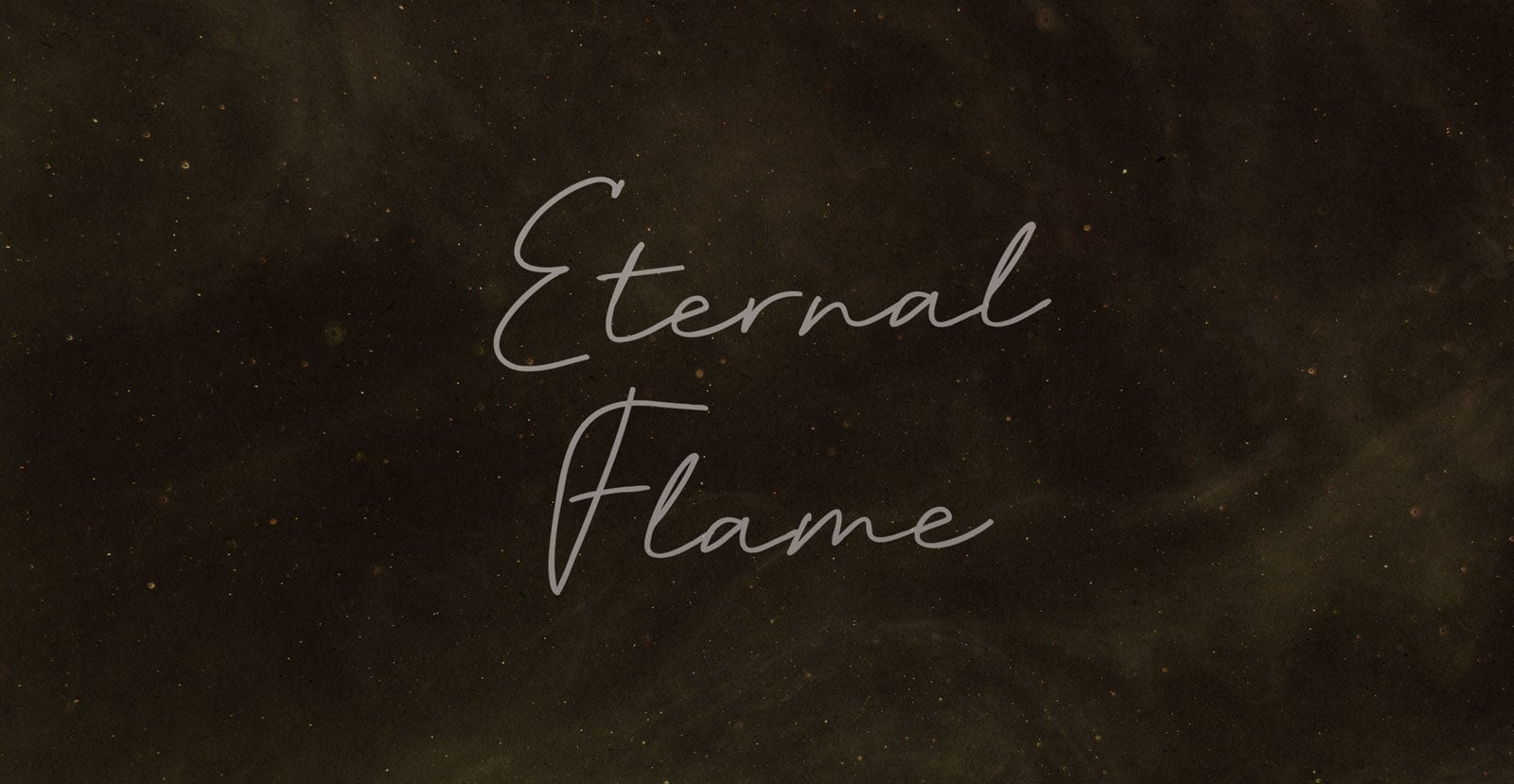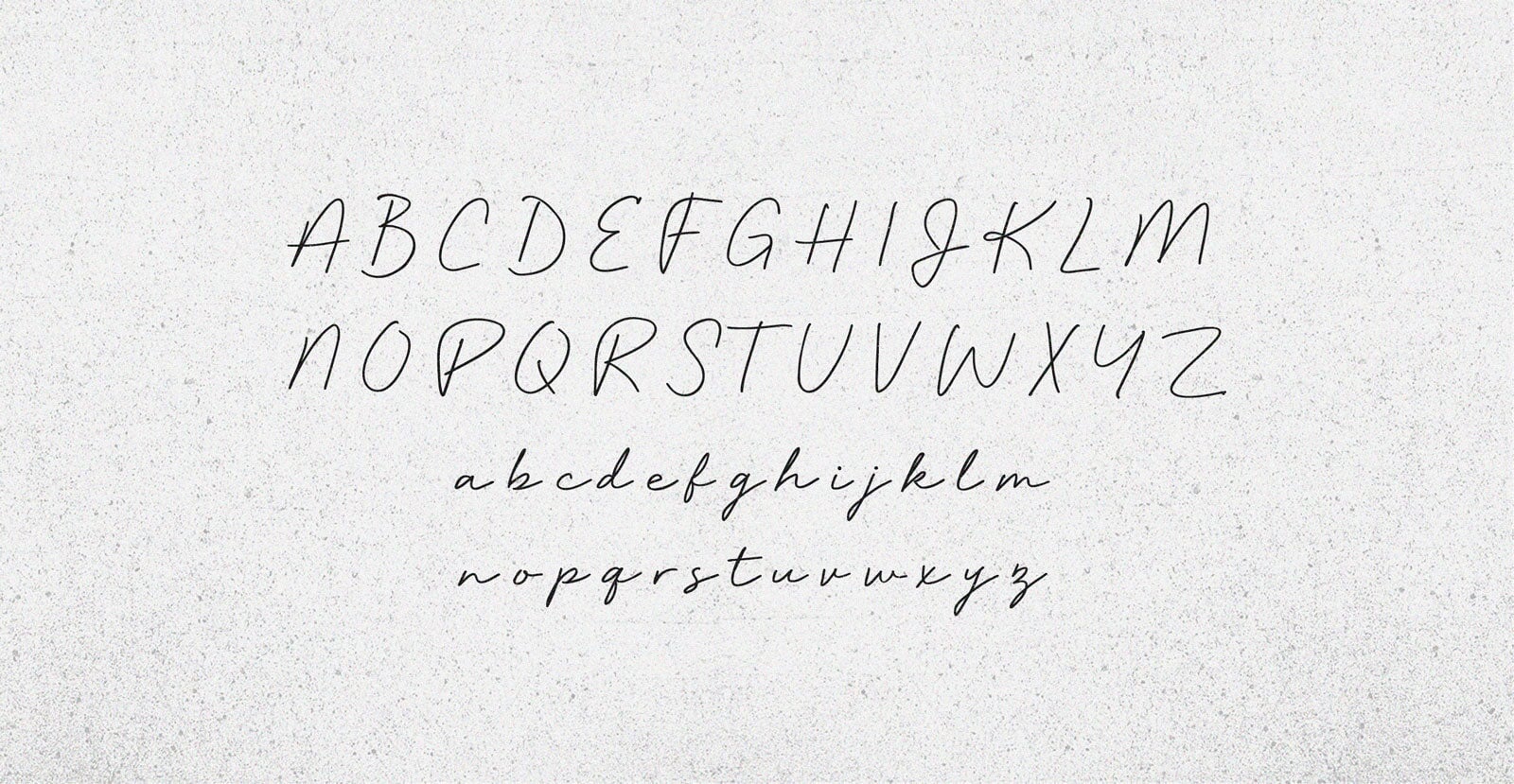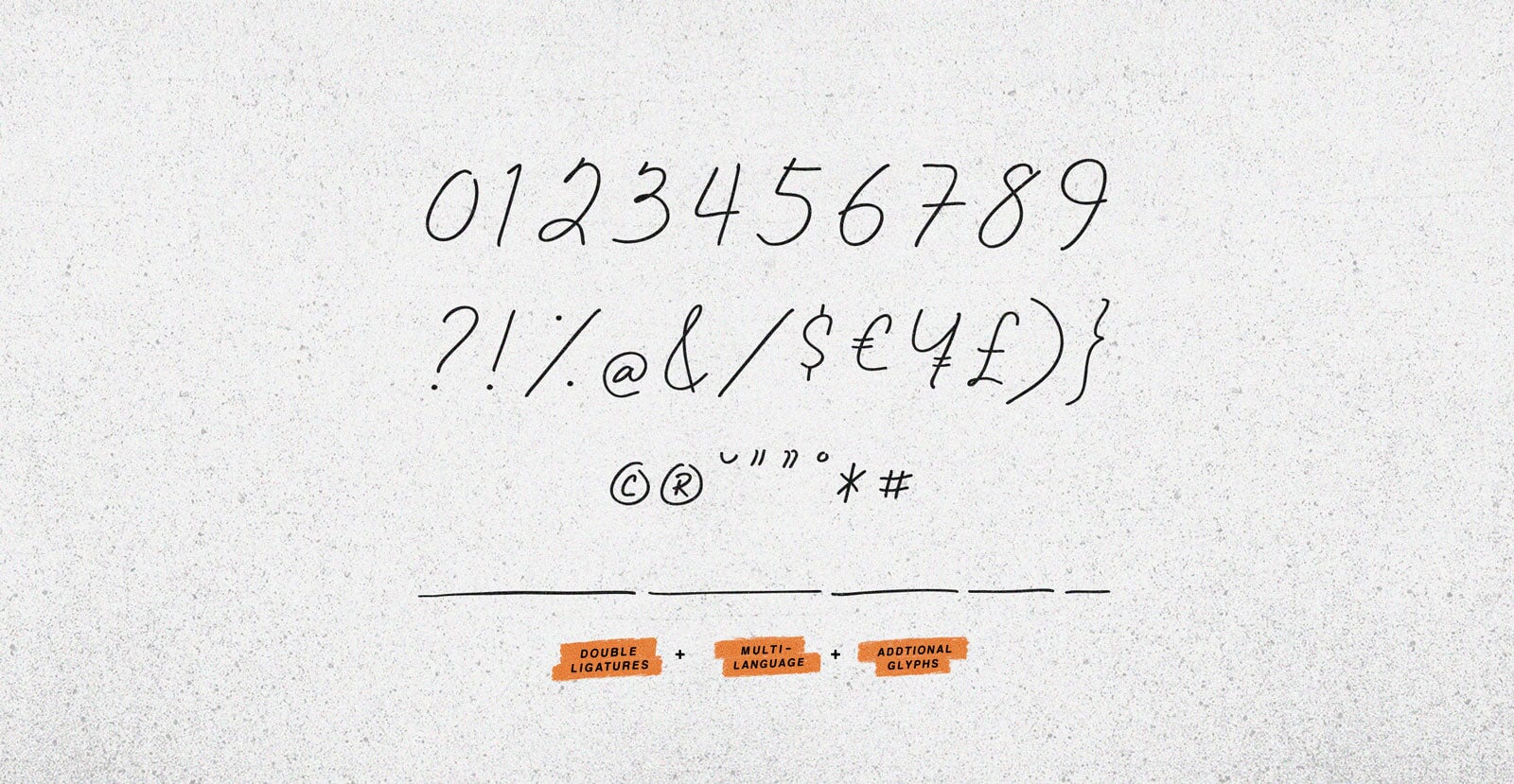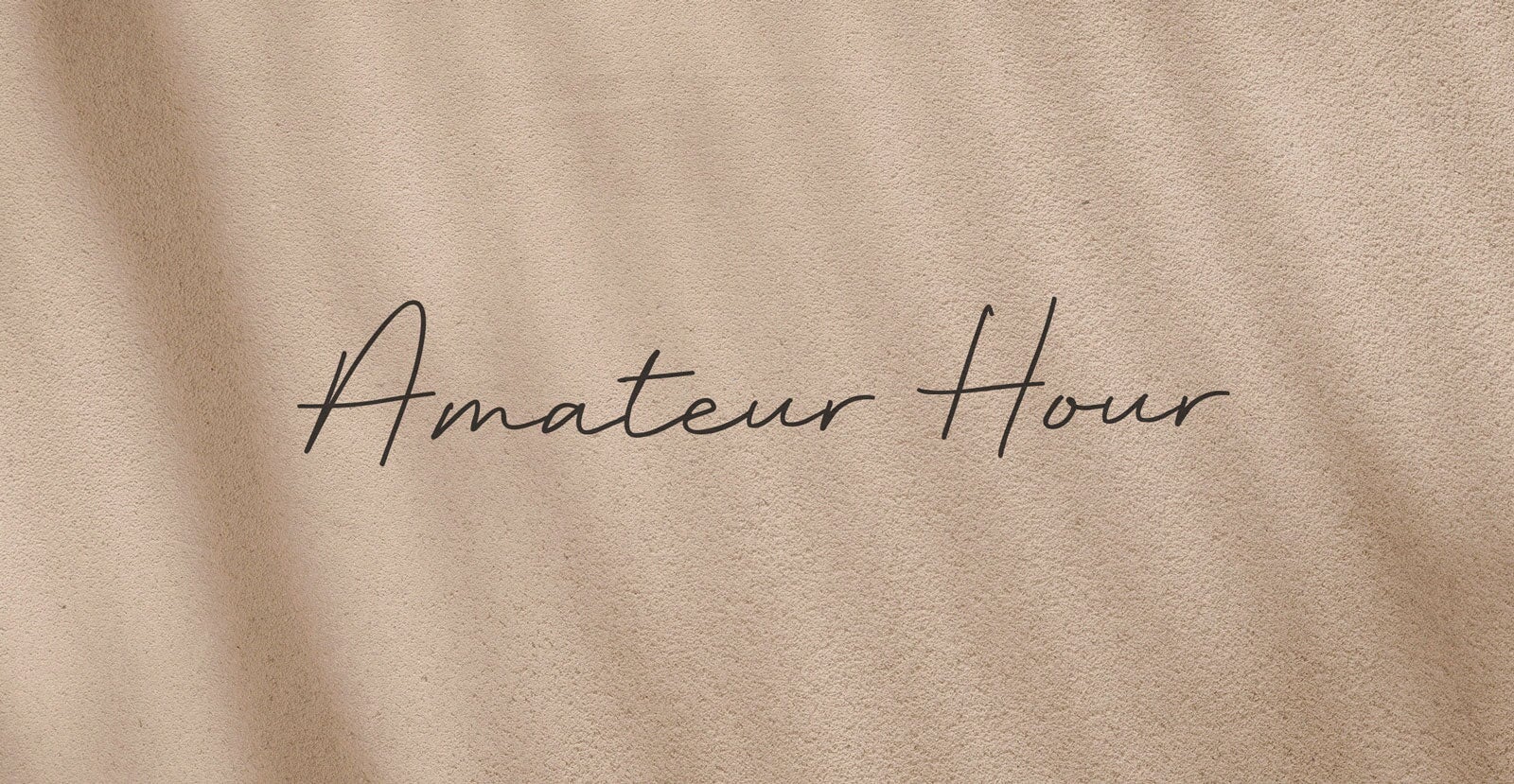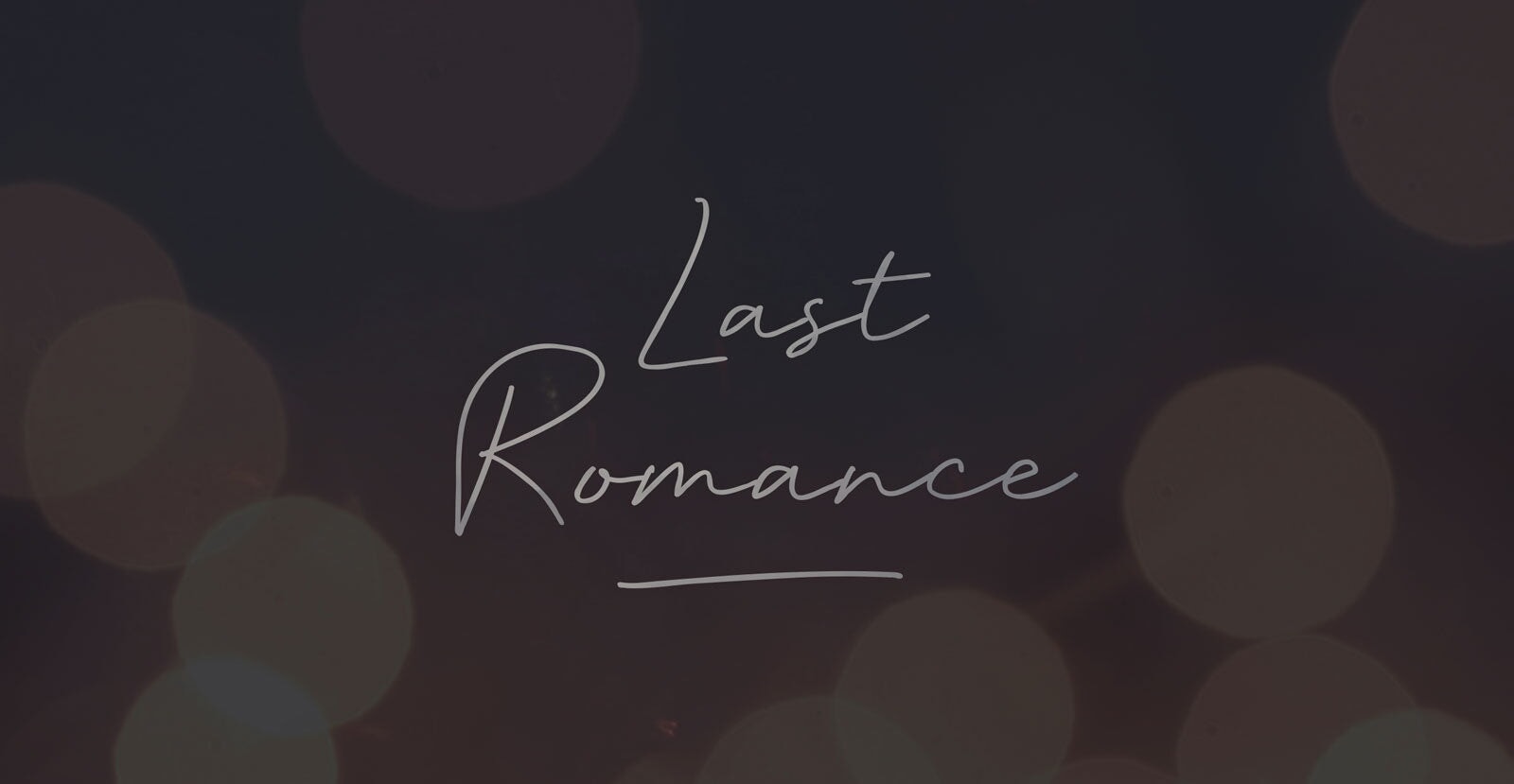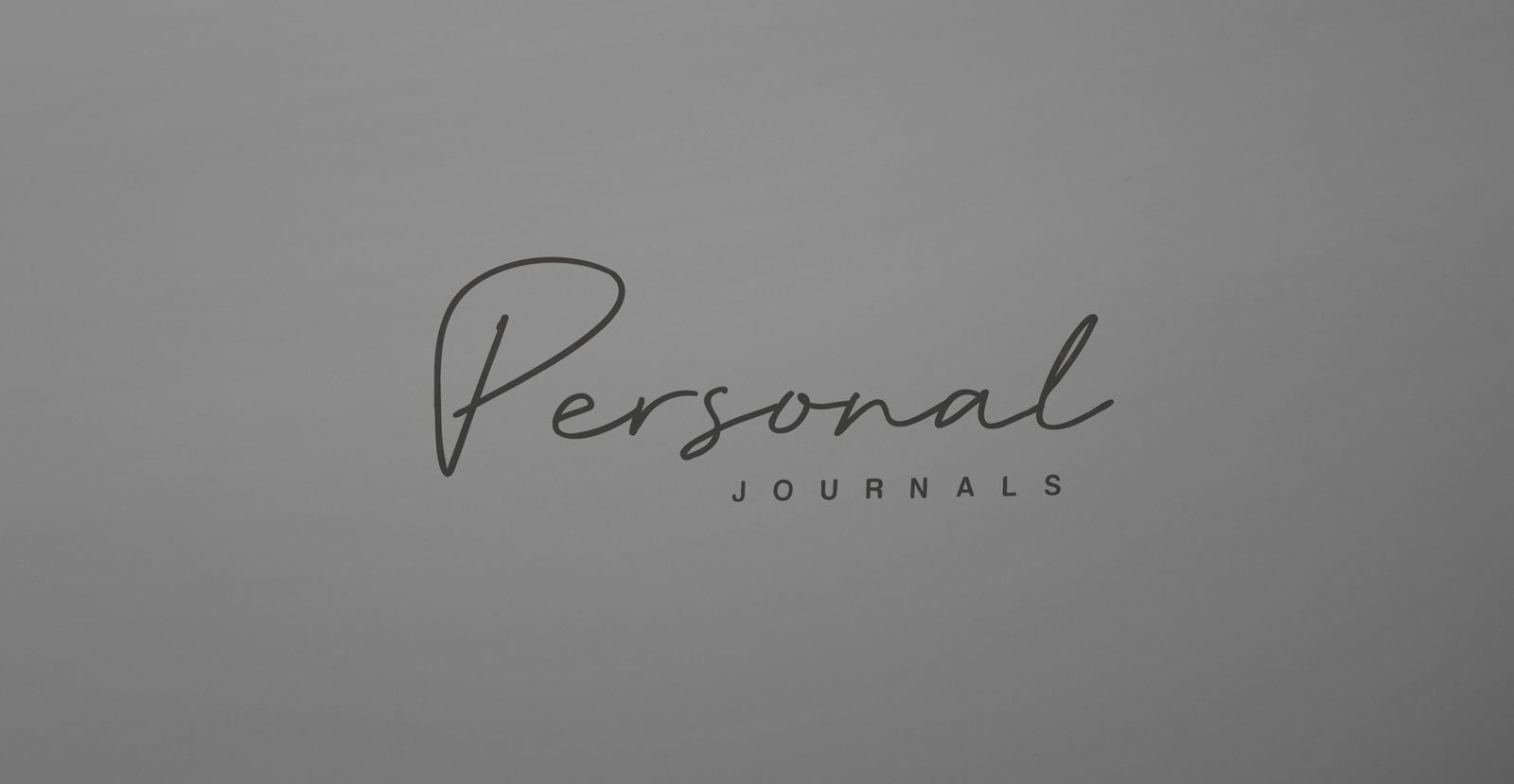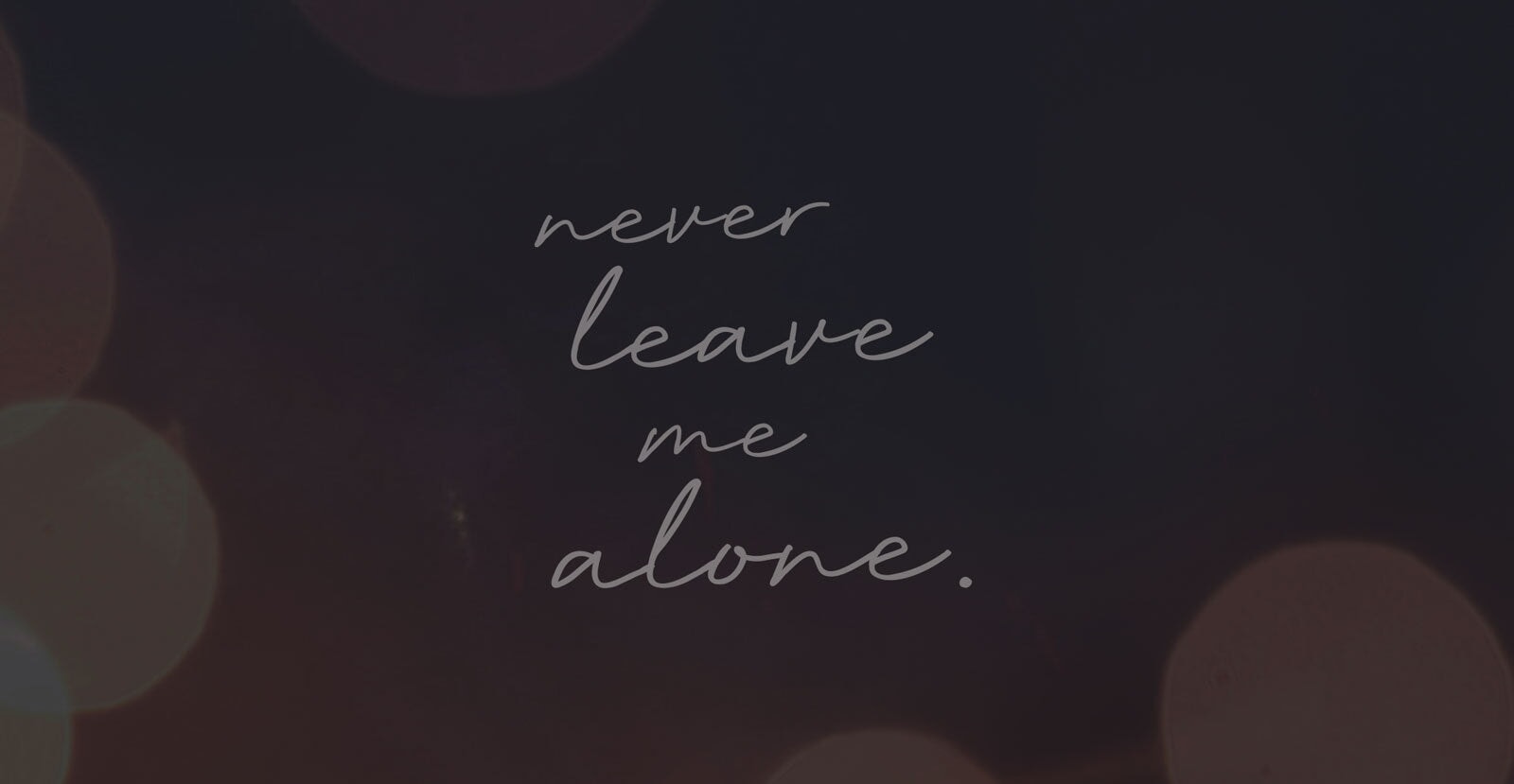
Eternal Flame
Handwritten Pen Script Font
Eternal Flame burns slow and steady. It’s not about the blaze, but the glow that never fades. A presence that endures, holding warmth at the edge of shadow.